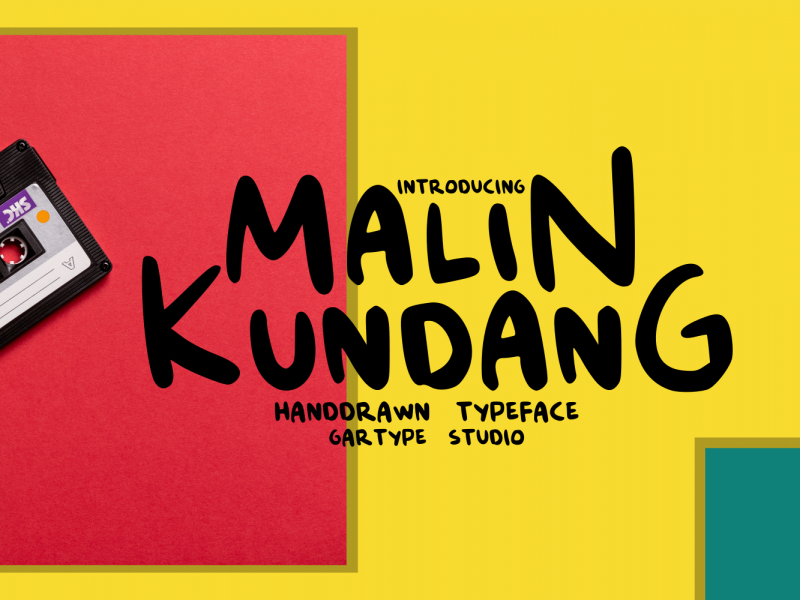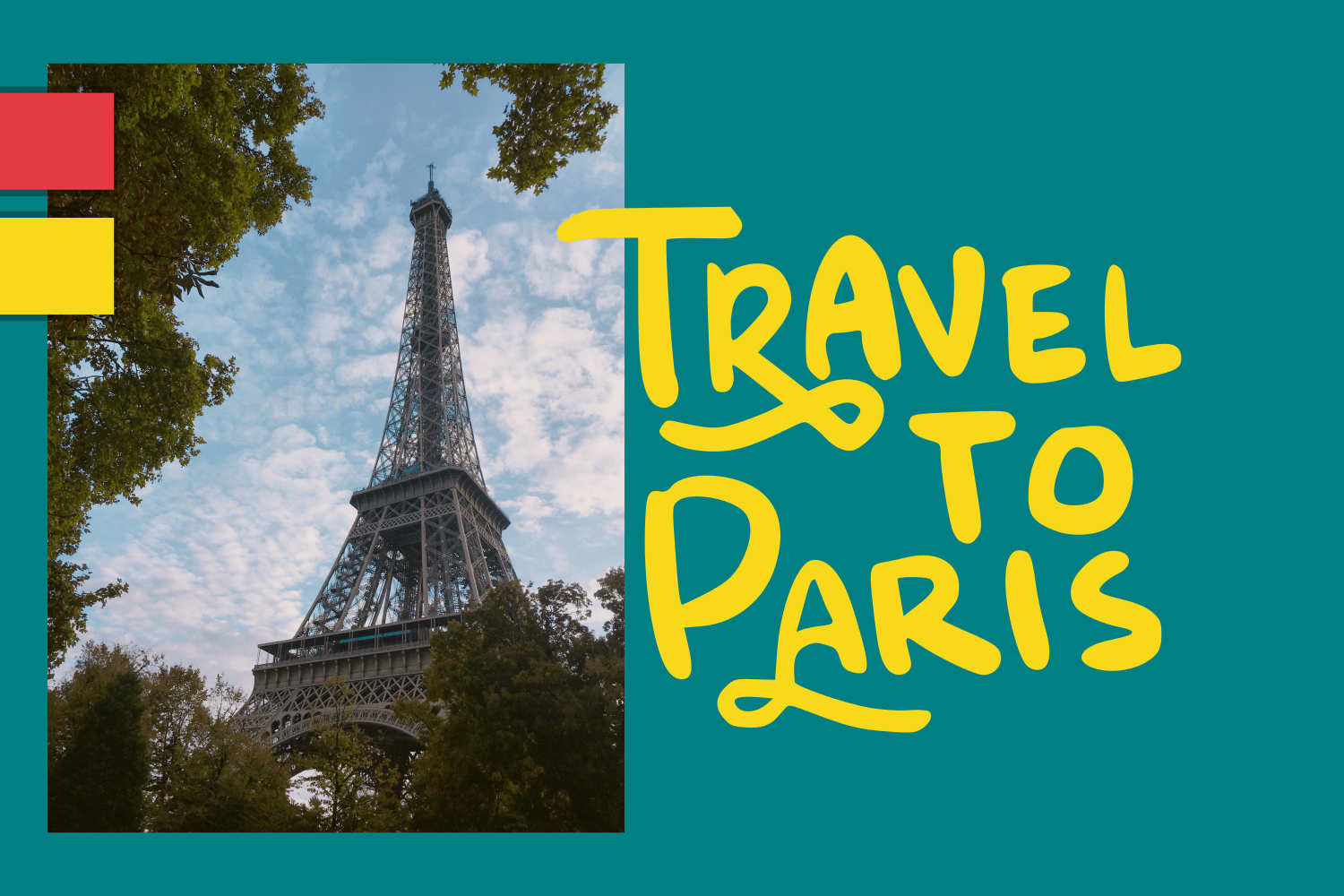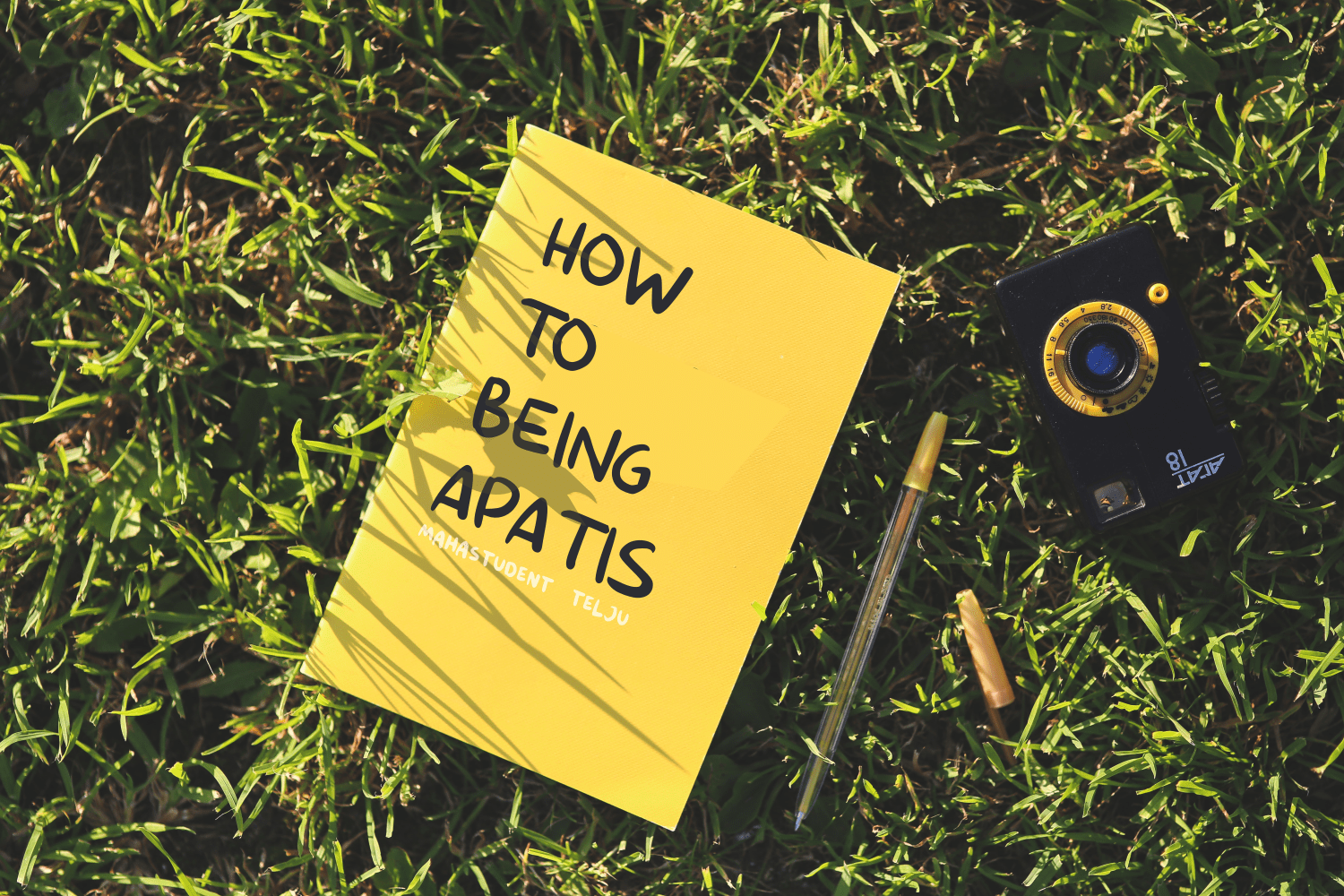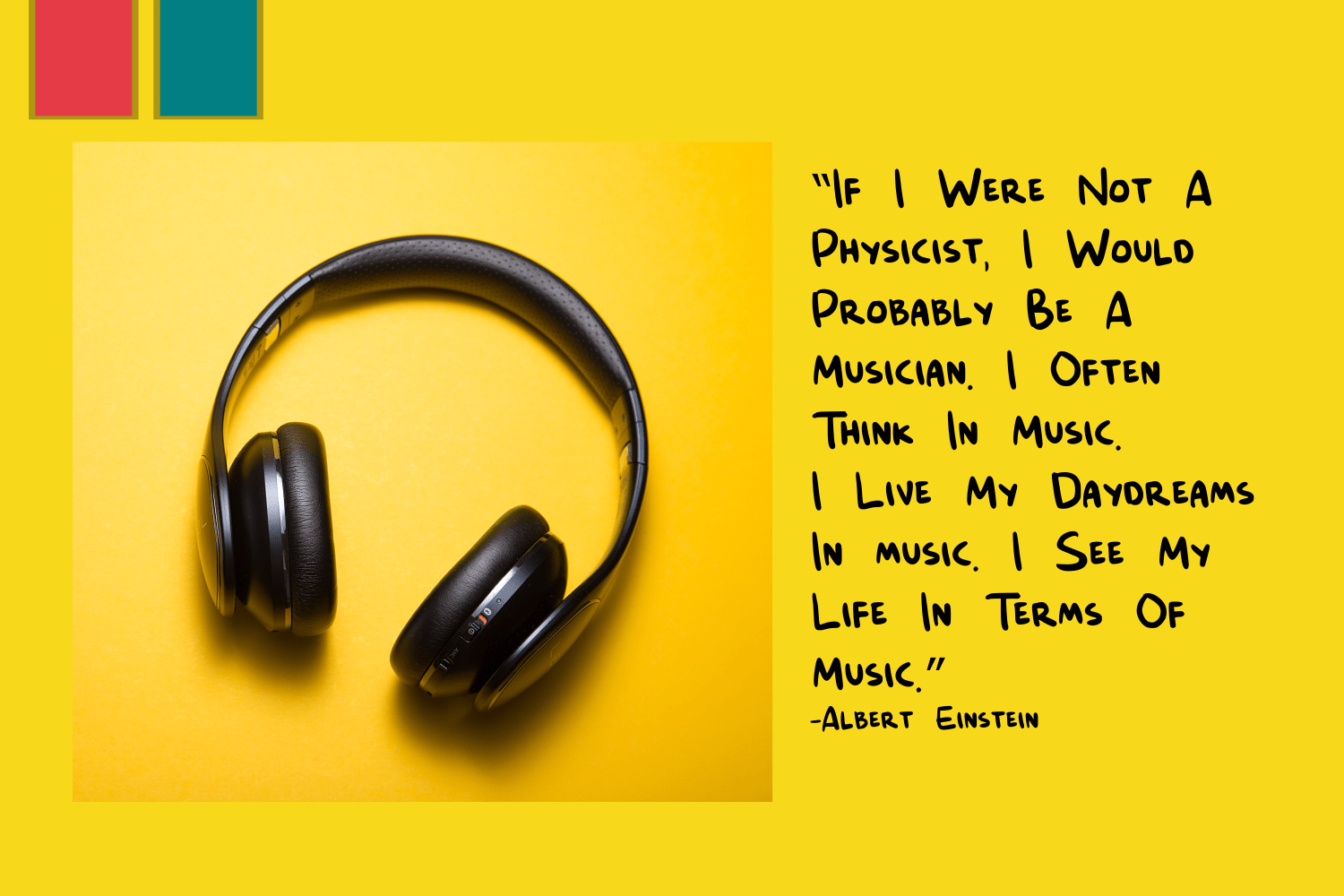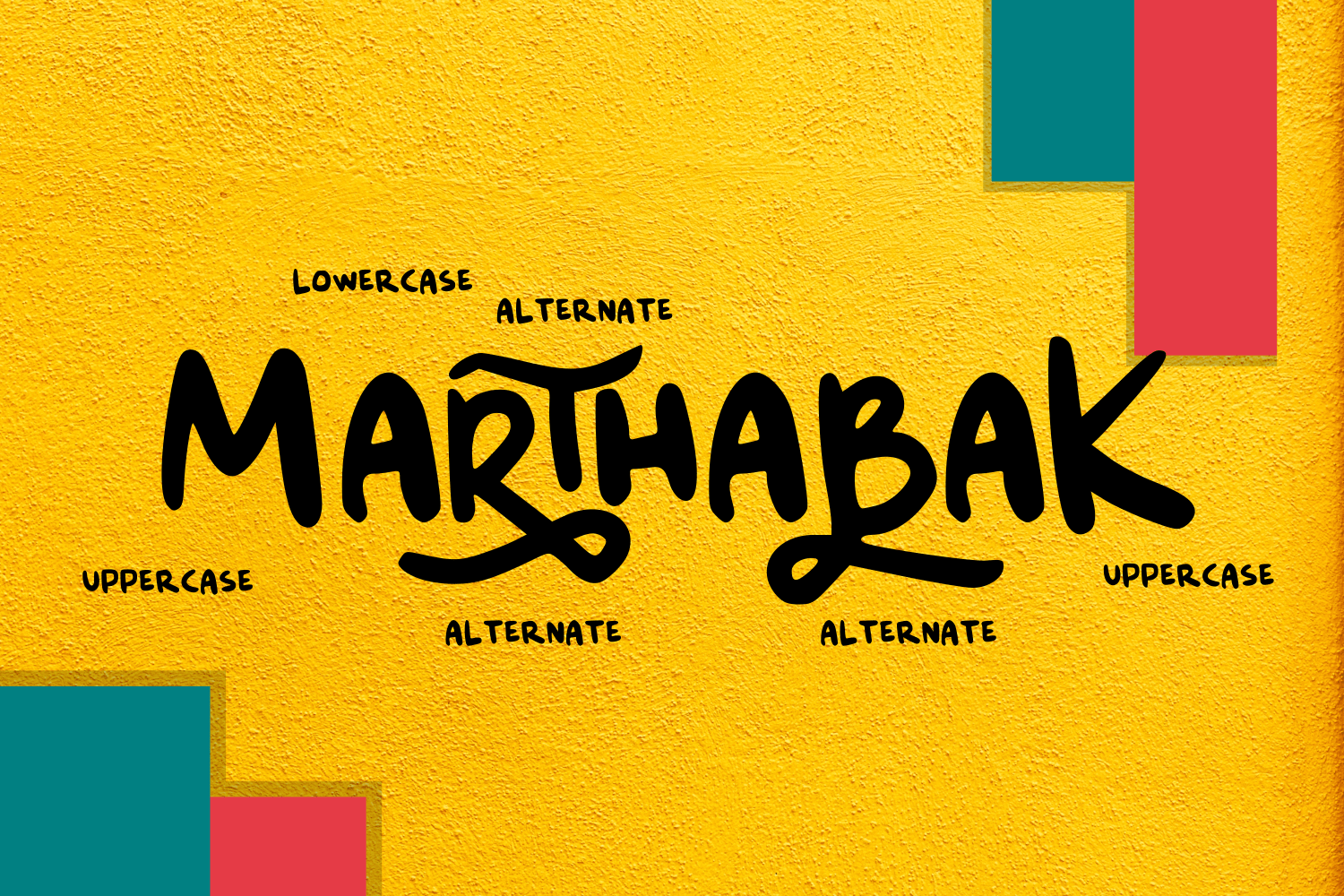
Malin Kundang Script Font
Malin Kundang Font
Hello buddy ! This time we will introduce to you Malin Kundang fonts that are suitable for many of your needs such as book covers, titles, logos, letterheads, quotes, posters, etc.Malin Kundang comes with a lot of Alternate to make your design more cool !
Gartype Studio